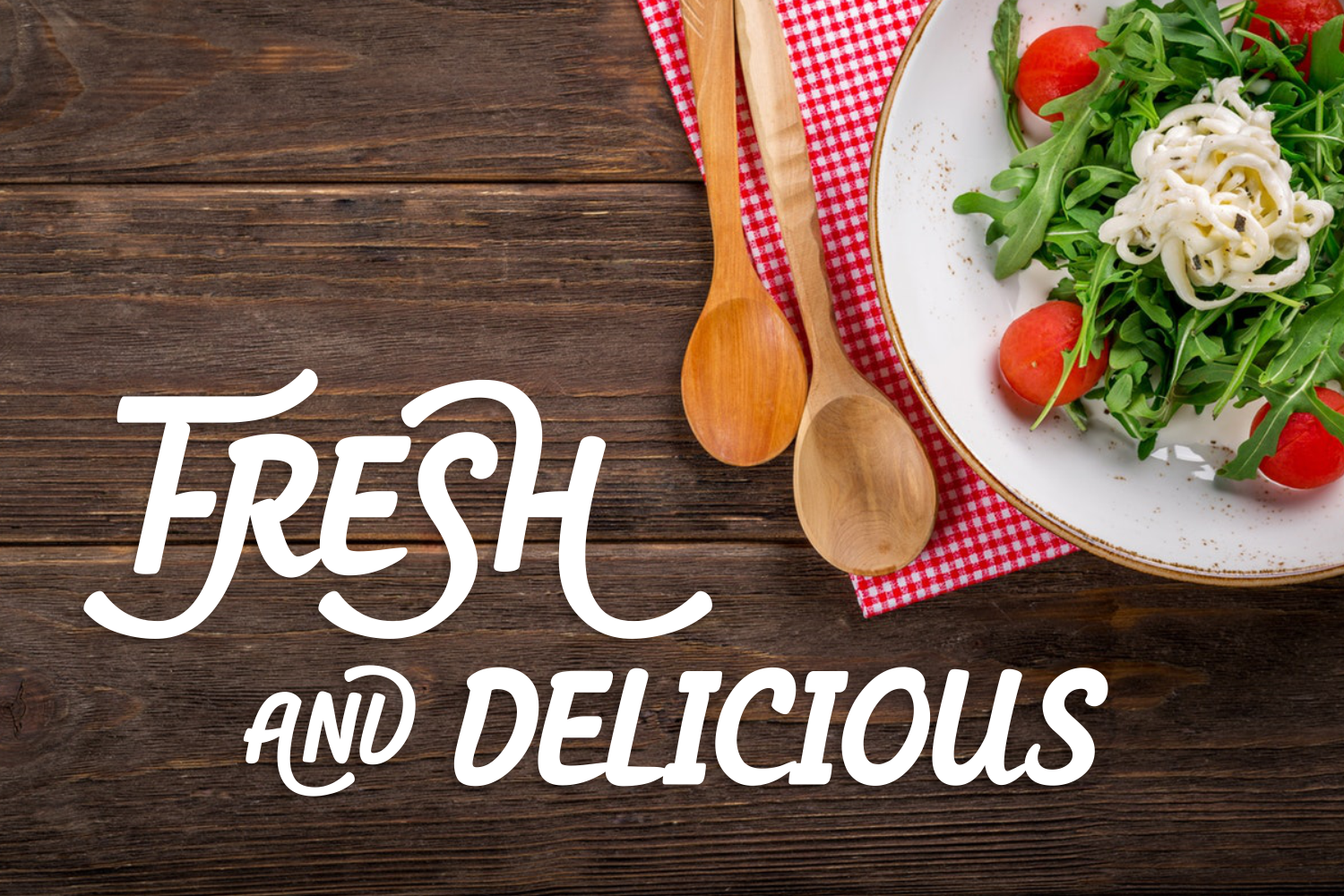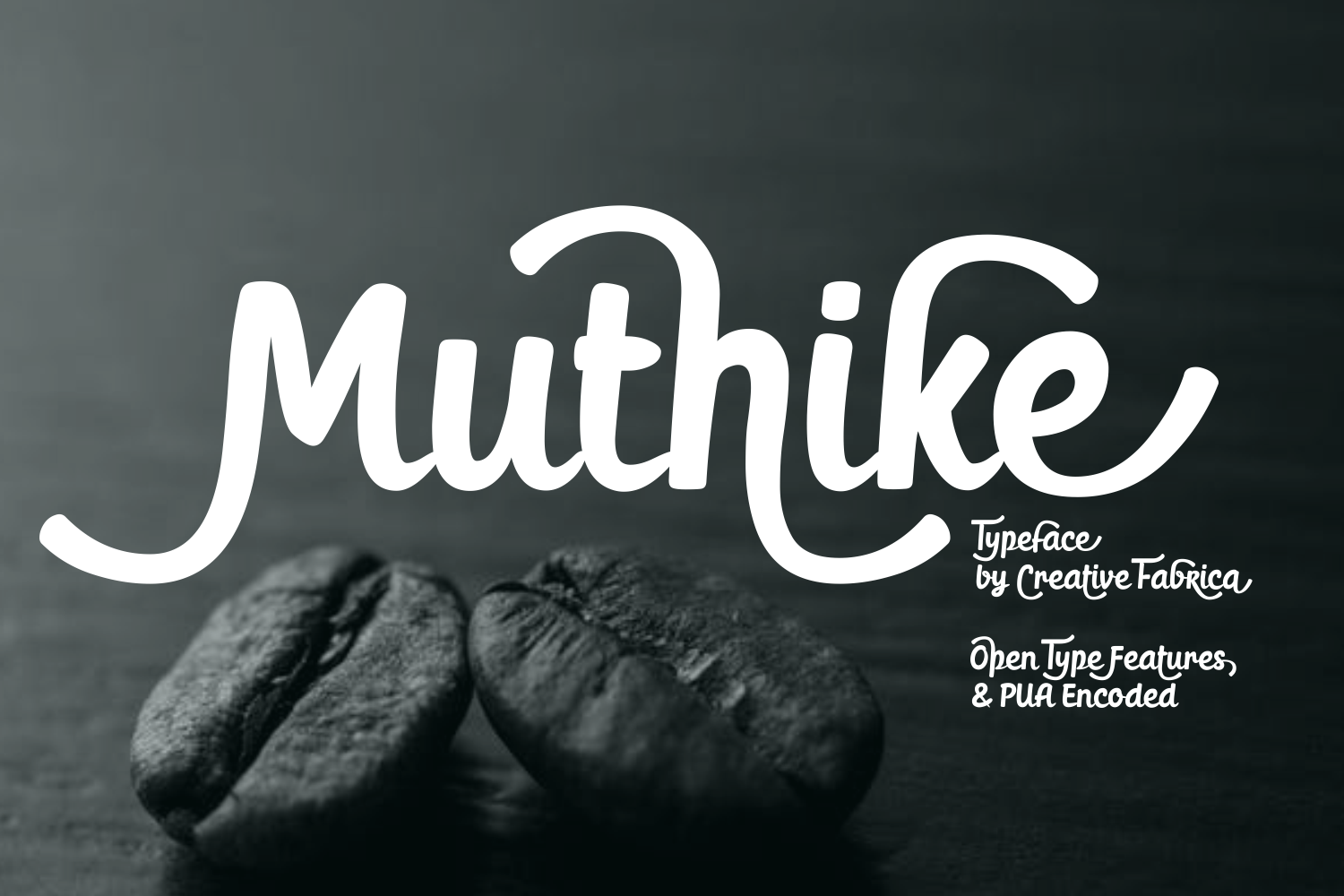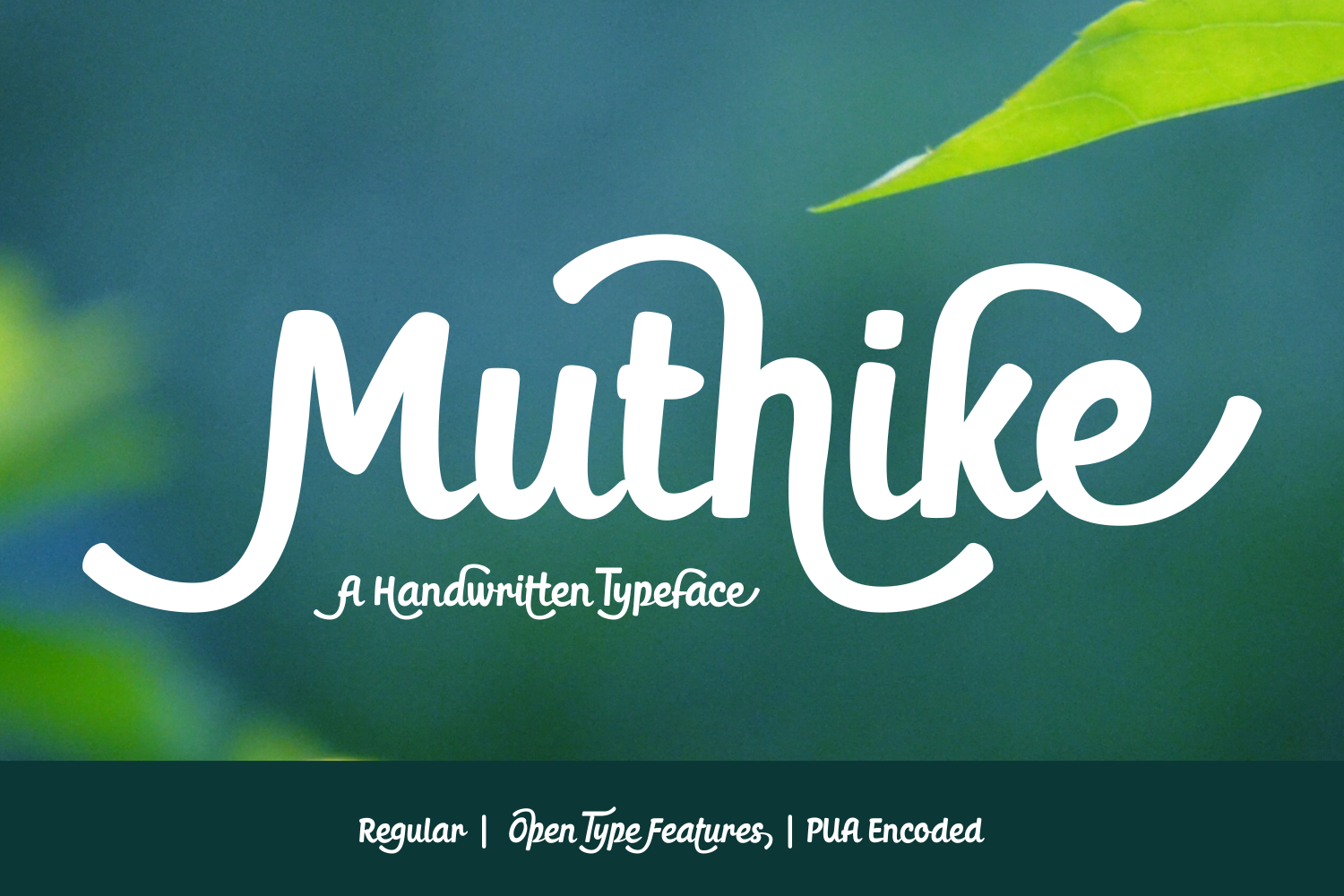
About Muthike Font
Muthike, a Creative Fabrica exclusive, is a bold hand painted font with a fun character.
The basic letters are very pleasant on the eye and offer a lot of personality. The real fun starts when you being incorporating the flowing swashes, allowing you to create unique, eye-catching designs.
There are multiple alternates available for every letter, making Muthike a versatile font that is a great addition to every designers toolkit.